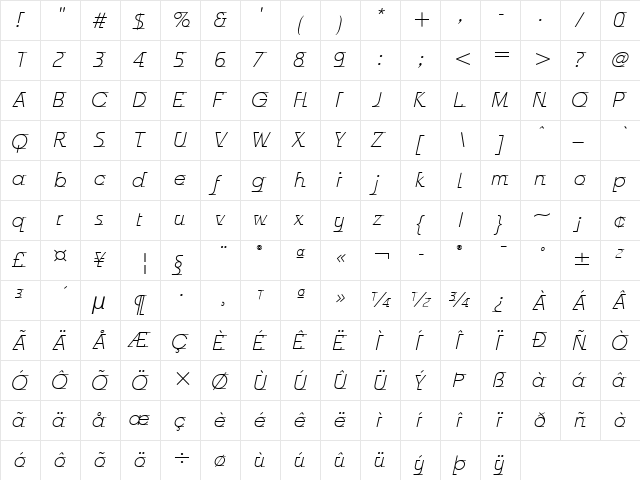
Odyssee ITC Light Italic Font Preview
Design Context for Odyssee ITC Typeface
Odyssee ITC takes a measured approach to typography — its balanced proportions and neutral character make it a reliable workhorse for both digital and print work. Its italic angle brings a sense of urgency and motion to the letterforms. The delicate stroke weight brings airiness and refinement to layouts.
Pro Tip: Try Odyssee ITC for annotation and caption copy alongside an upright companion — the contrast in angle creates a dynamic but ordered typographic system.